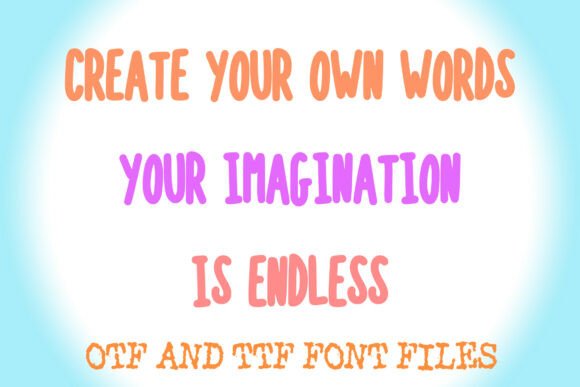
Unleash a Wave of Childlike Wonder with Cute Kid Marker Pen Font
Are you looking for a typeface that can add a touch of playful innocence and heartfelt warmth to your creative projects? Look no further than Cute Kid Marker Pen Font! This delightful font perfectly captures the whimsical essence of a child’s hand-drawn lettering, featuring friendly, rounded shapes that evoke the natural strokes of a marker pen. It’s more than just a font; it’s an instant burst of joy that can bring a smile to anyone’s face.
The Charm of Cute Kid Marker Pen Font
Each character in Cute Kid Marker Pen Font is crafted with a clear, bold presence and a charming, slightly imperfect hand-drawn feel, as if written by a happy child. The approachable, bubbly forms make it an ideal choice for a wide range of design projects, from children’s books and nursery decor to educational materials and playful branding. The font’s unique blend of simplicity and cuteness is sure to captivate your audience and leave a lasting impression.
Whether you’re a designer, crafter, or educator, Cute Kid Marker Pen Font is the perfect addition to your creative toolkit. The font’s playful and child-friendly design makes it an excellent choice for:
- Children’s books: Add a touch of whimsy and fun to your storybook designs.
- Nursery decor: Create adorable and inviting spaces for little ones.
- Educational materials: Make learning fun and engaging with this delightful font.
- Playful branding: Add a dash of personality to your brand with this charming typeface.
- Greeting cards: Create cheerful and personalized cards for special occasions.
Cute Kid Marker Pen Font is versatile and can be used for a wide range of creative projects, including:
- Invitations: Design adorable invitations for birthday parties, baby showers, or other celebrations.
- Labels: Create cute and colorful labels for kid-friendly products or school supplies.
- Social media posts: Add a touch of playfulness to your social media posts and stories.
- Classroom resources: Create engaging and interactive learning materials for your students.
Why Choose Cute Kid Marker Pen Font?
With Cute Kid Marker Pen Font, you can:
- Add a touch of whimsy and fun to your designs.
- Create a unique and playful brand identity.
- Make your designs more engaging and interactive.
- Perfect for projects that require a child-friendly and approachable tone.
With Cute Kid Marker Pen Font, the possibilities are endless! Whether you’re a seasoned designer or a crafty DIY enthusiast, this delightful font is sure to inspire your creativity and bring a touch of childlike wonder to your projects. So why wait? Download Cute Kid Marker Pen Font today and start creating your own unique and playful designs!
In conclusion, Cute Kid Marker Pen Font is a charming and versatile typeface that can add a touch of playful innocence and heartfelt warmth to any creative project. Its unique blend of simplicity and cuteness makes it an ideal choice for designers, crafters, and educators looking to create engaging and interactive designs. So go ahead, unleash your creativity, and have fun with Cute Kid Marker Pen Font!